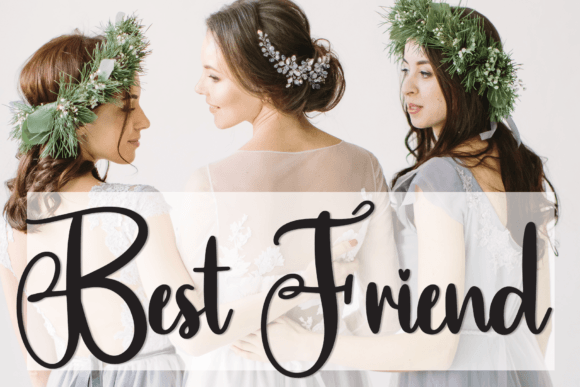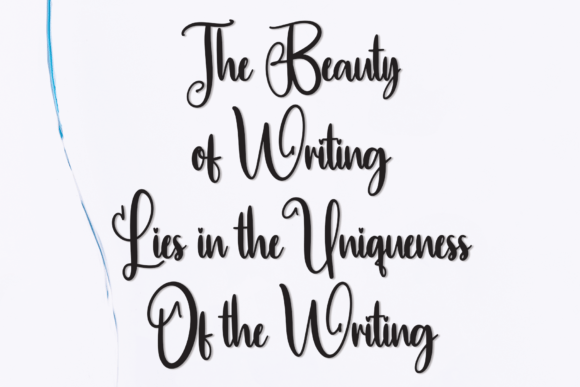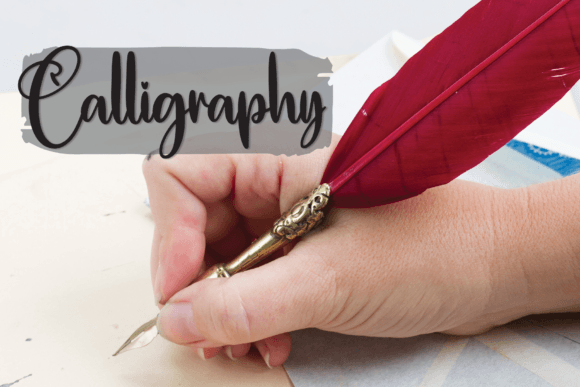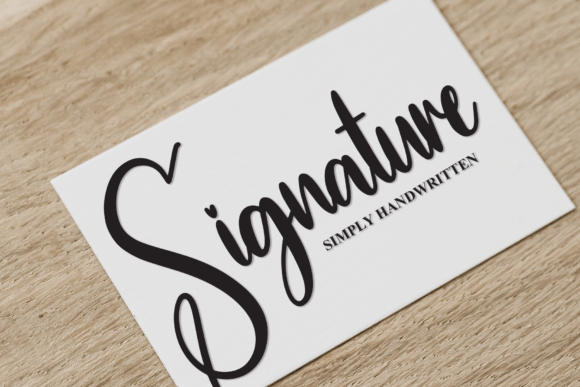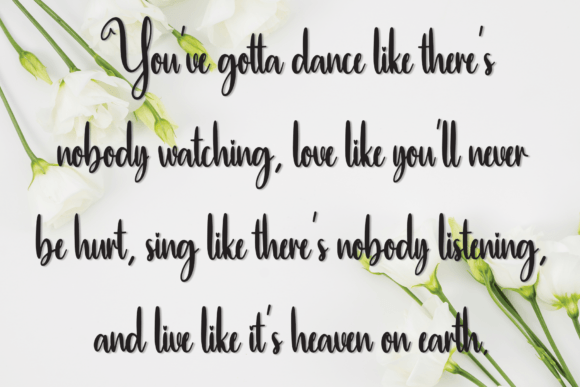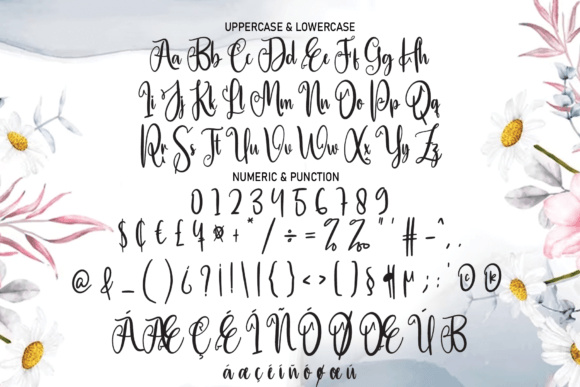
Billionaire Font: Elevate Your Designs with Elegance and Sophistication
Are you looking for a font that exudes luxury, sophistication, and timeless style? Look no further than the Billionaire Font, a stunning flowing handwritten font that is sure to elevate your designs to new heights. With its elegant touch and incredibly distinct style, this font is perfect for designers and crafters who want to create spectacular designs that leave a lasting impression.
The Characteristics of Billionaire Font
Billionaire Font is a unique and beautiful font that boasts a range of characteristics that set it apart from other fonts. Here are some of its key features:
- Elegant and Sophisticated: Billionaire Font is described by its elegant touch, making it perfect for designs that require a level of sophistication and luxury.
- Flowing Handwritten Style: This font features a flowing handwritten style that is both fluid and natural, giving it a unique and organic feel.
- Distinct and Timeless: The Billionaire Font has an incredibly distinct and timeless style that is sure to stand out in any design.
- Perfect for a Range of Projects: Whether you’re working on a logo, branding project, packaging design, or social media graphics, the Billionaire Font is versatile enough to be used in a wide range of applications.
Why Choose Billionaire Font?
So why choose the Billionaire Font for your next design project? Here are just a few reasons why this font stands out:
- Instantly Elevate Your Designs: With its elegant and sophisticated style, the Billionaire Font can instantly elevate your designs and give them a level of luxury and sophistication.
- Stand Out from the Crowd: The unique and distinct style of the Billionaire Font ensures that your designs will stand out from the crowd and grab attention.
- Easy to Read and Versatile: Despite its elegant and sophisticated style, the Billionaire Font is easy to read and versatile enough to be used in a wide range of applications.
- Perfect for Branding and Marketing: The Billionaire Font is perfect for branding and marketing projects, where a level of sophistication and luxury is required.
How to Use Billionaire Font in Your Designs